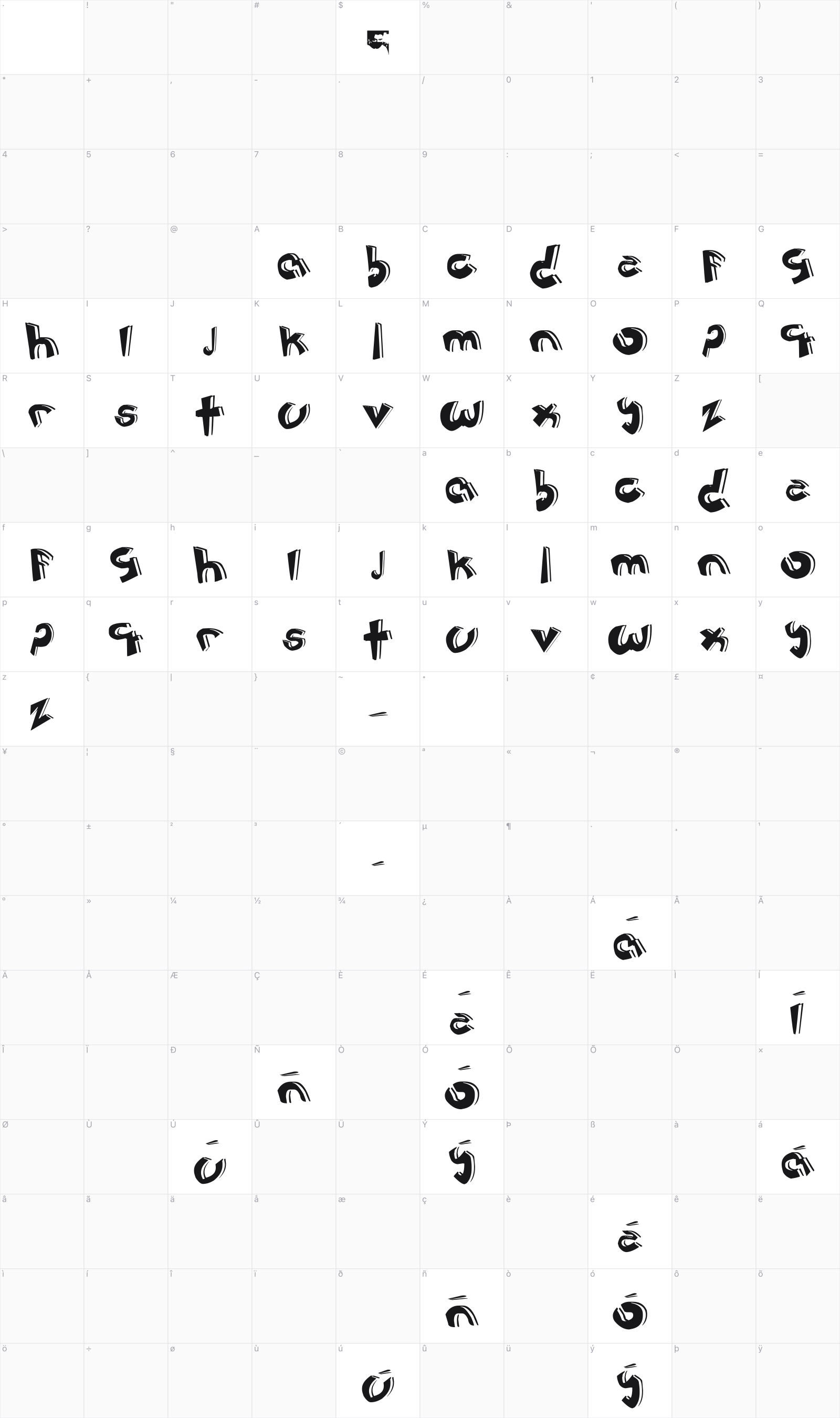
Jerónimo Cartoon
Jerónimo Cartoon is a bold, rounded display face with the kind of bouncy, exaggerated letterforms you'd expect to see in a comic strip or animated title sequence. The shapes are playful and slightly irregular, giving each word a loose, hand-lettered energy that doesn't feel overly polished. Best at large sizes for headlines, posters, children's content, or anywhere the design needs to feel lighthearted and fun.